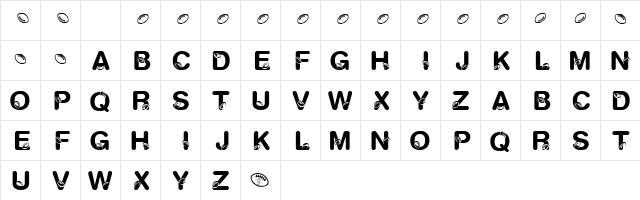
KR Football Fun Regular Free Font
KR Football Fun Regular
Design Context for KR Football Fun
KR Football Fun has an approachable, lighthearted character - its loose, expressive forms are well-suited to children's content, casual branding, and fun-first design.
Font Pairing: Pairs well with a rounded or humanist sans for body copy, maintaining the friendly tone without relying on KR Football Fun to carry extended reading.
Pro Tip: Use KR Football Fun at larger display sizes where its expressive character can land. Pair with a clean, simple sans for body copy to maintain readability.